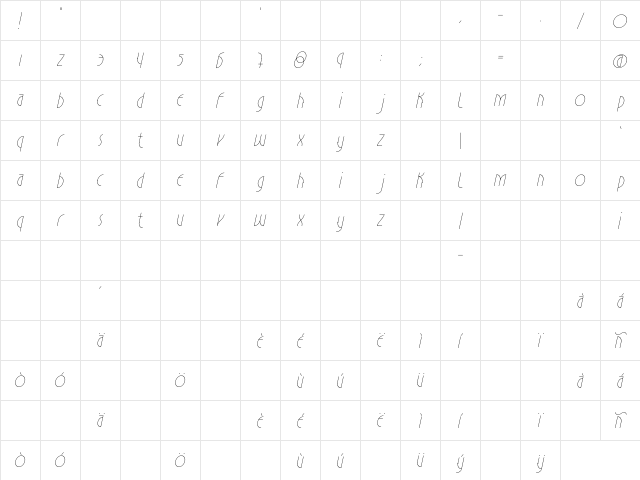
Estilistica Italic
Design Context for Estilistica Typeface
Estilistica offers clean, dependable letterforms without strong stylistic allegiance, making it a practical choice for designers who need flexibility. The dynamic lean of this cut emphasises speed and emphasis in any layout.
Pro Tip: Use Estilistica for emphasis, pull quotes, and subheadings where its slanted energy can add rhythm to the layout.